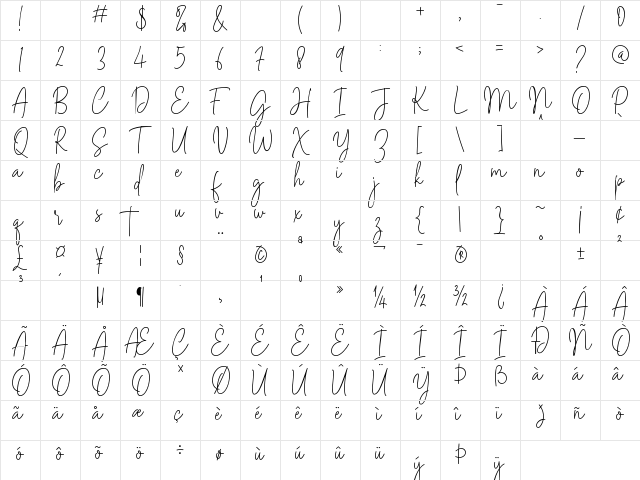
Midnight Signature Demo Versio Regular
| Designer | (MJB Letters). 2020. (Muhammad Mujibulloh) |
Design Context for Midnight Signature Demo Versio Typeface
Midnight Signature Demo Versio is a composed and adaptable typeface that performs quietly and consistently across a wide range of design contexts.